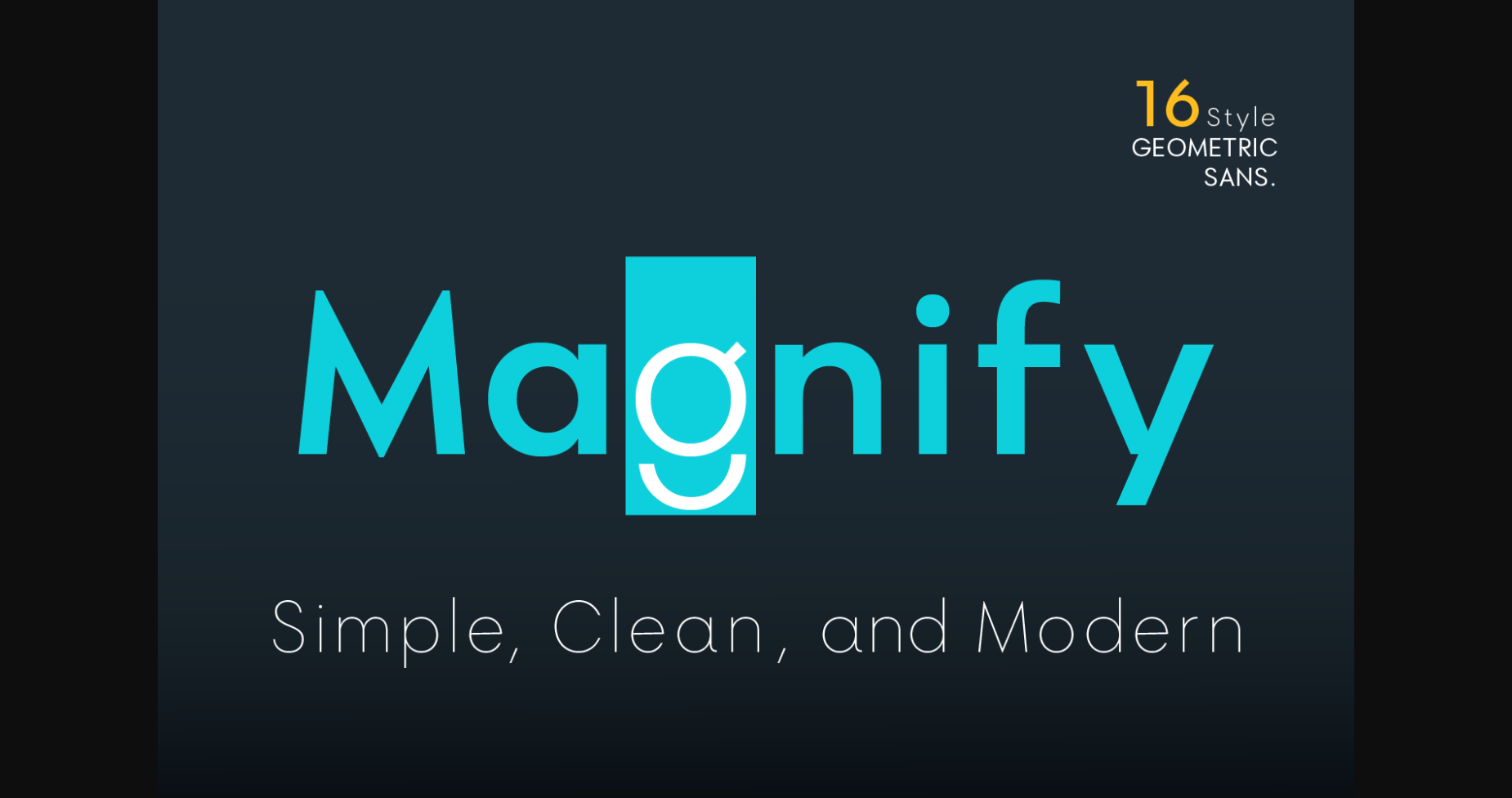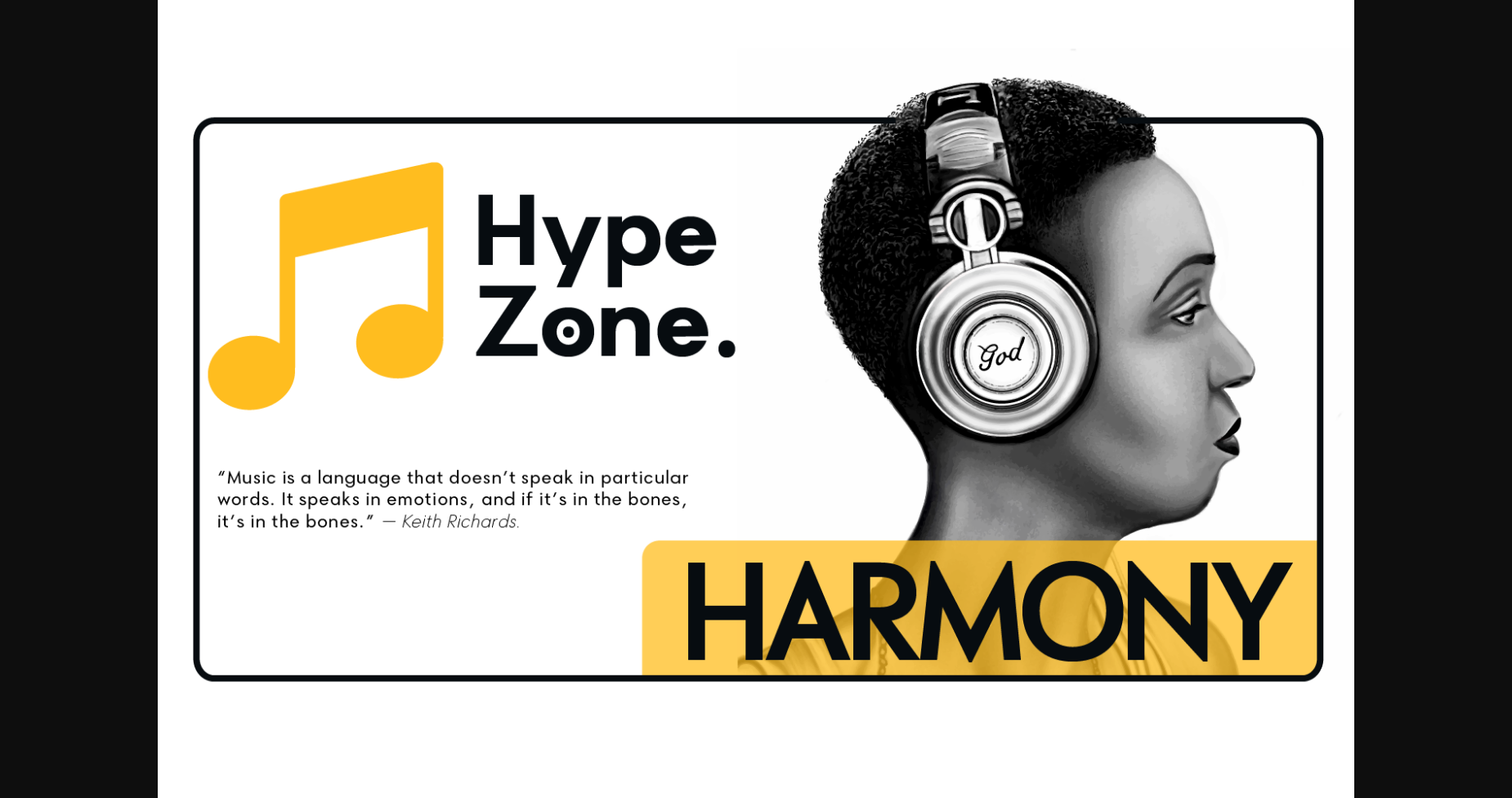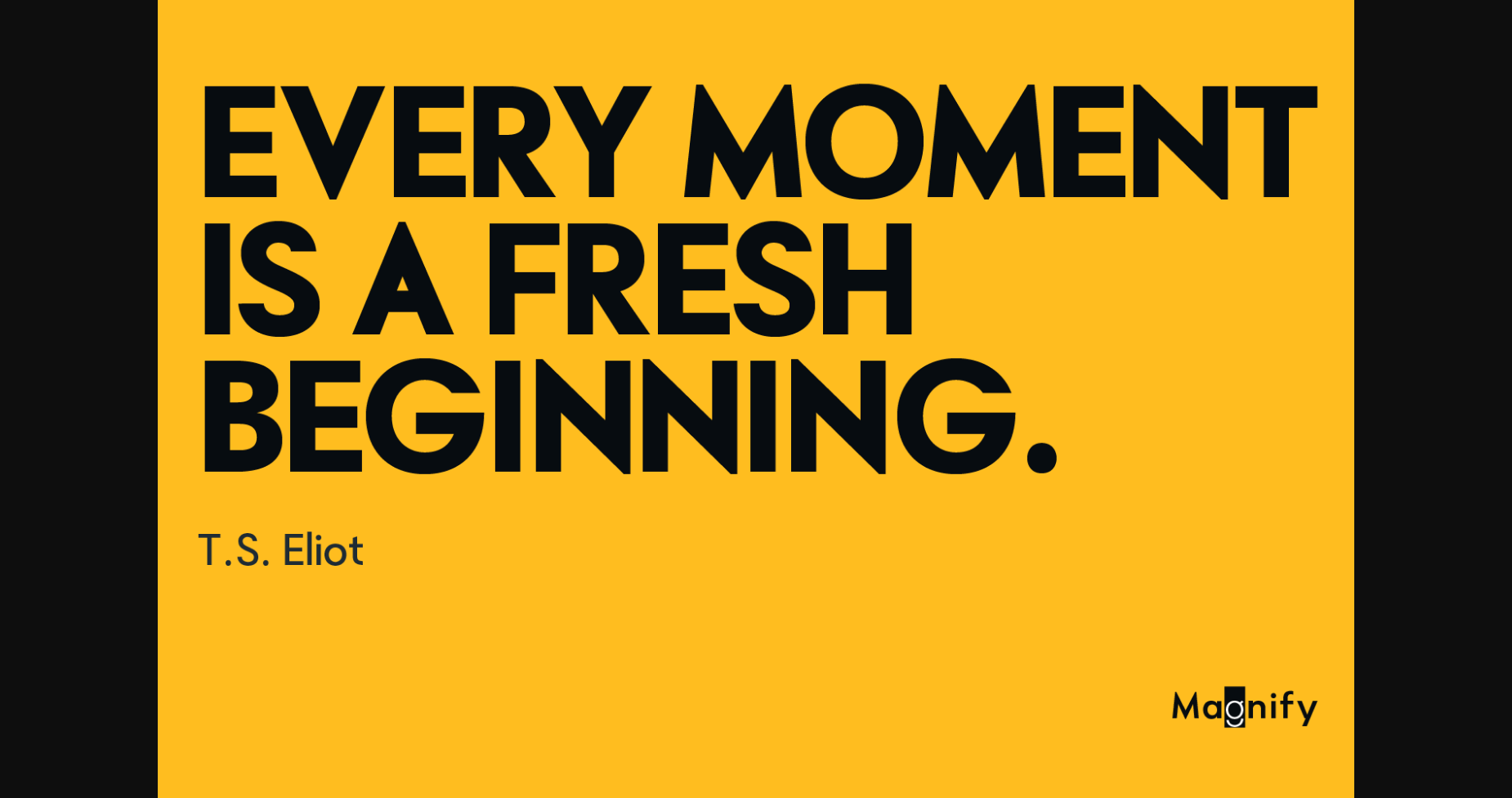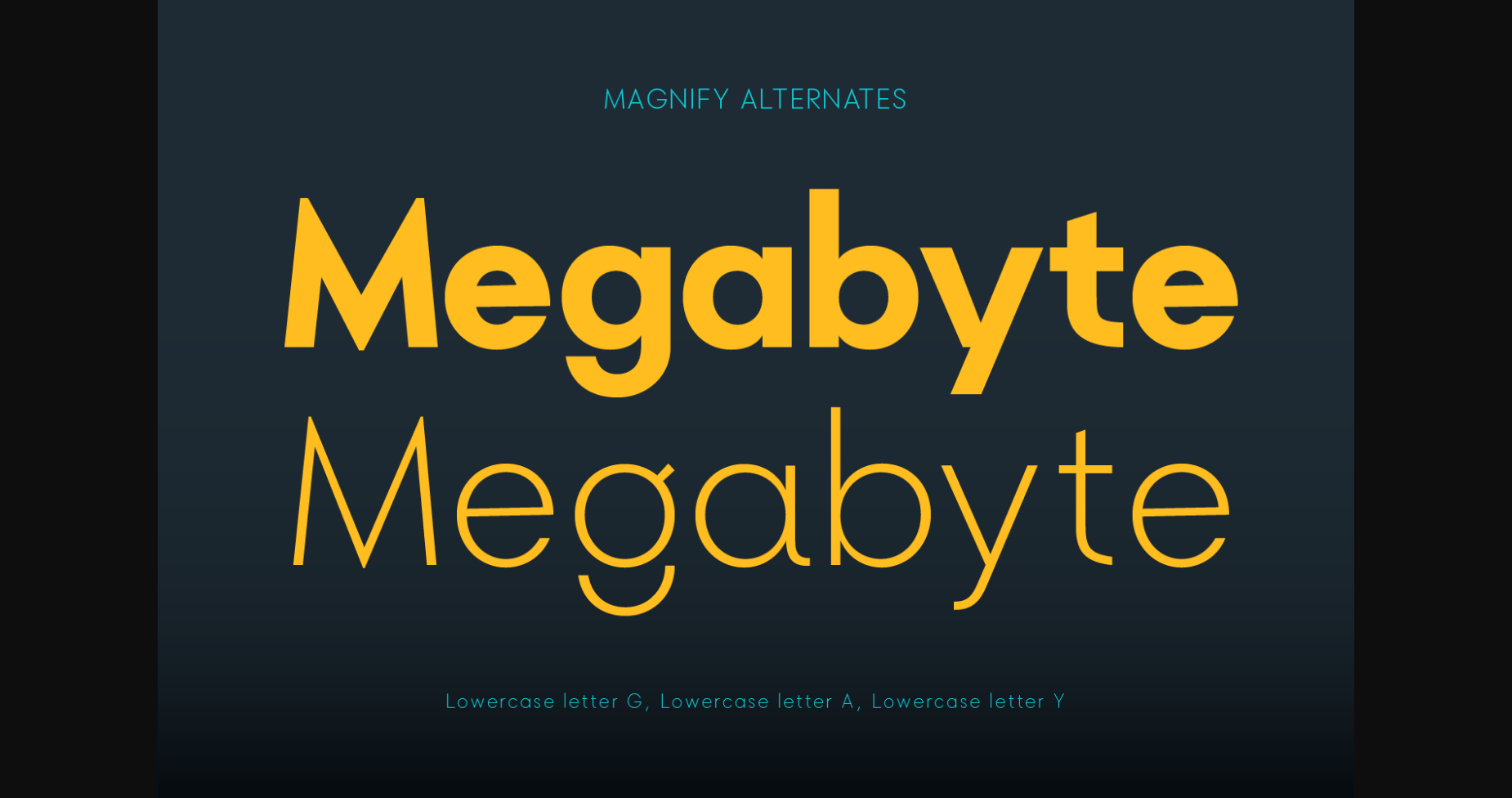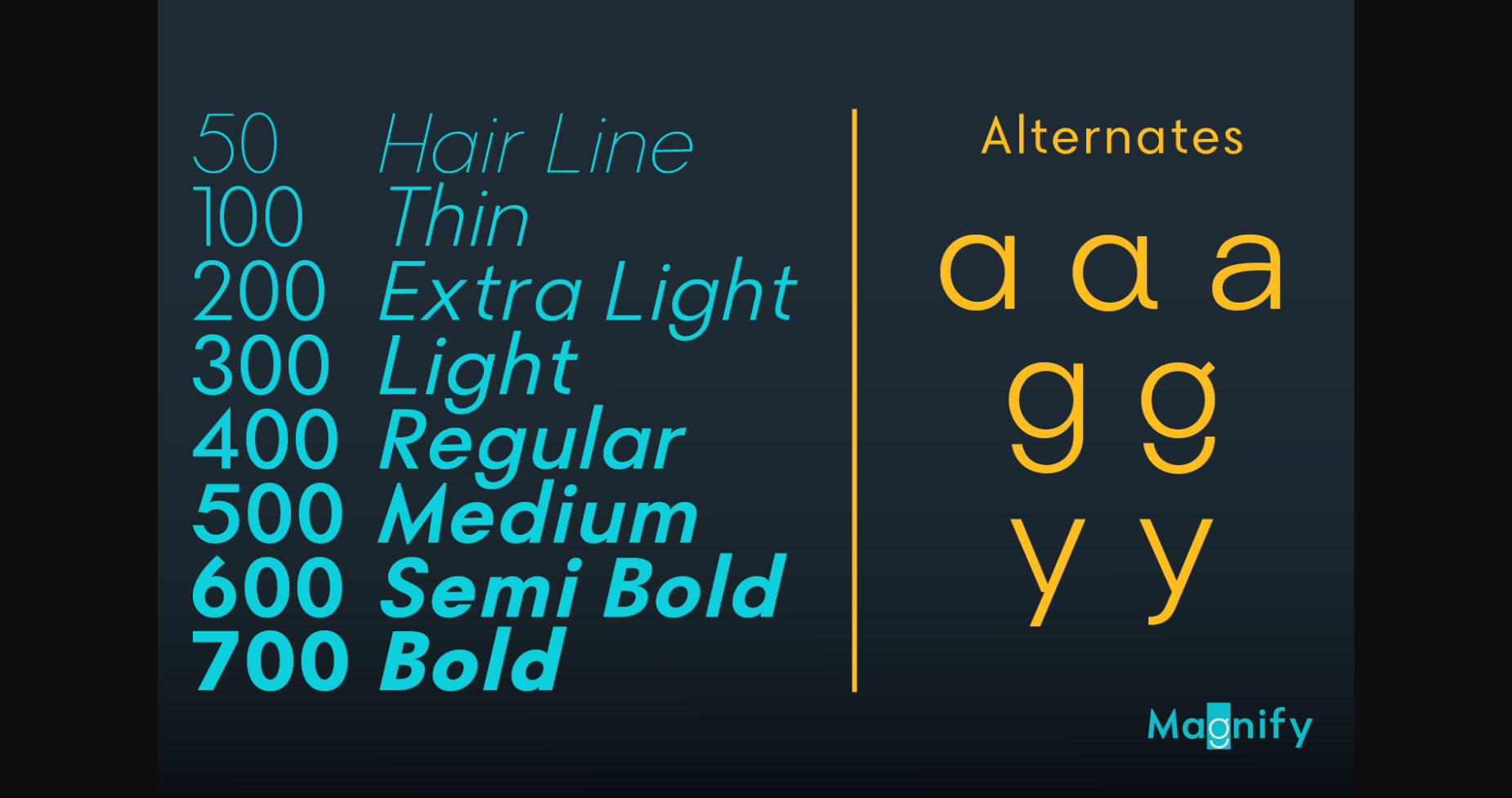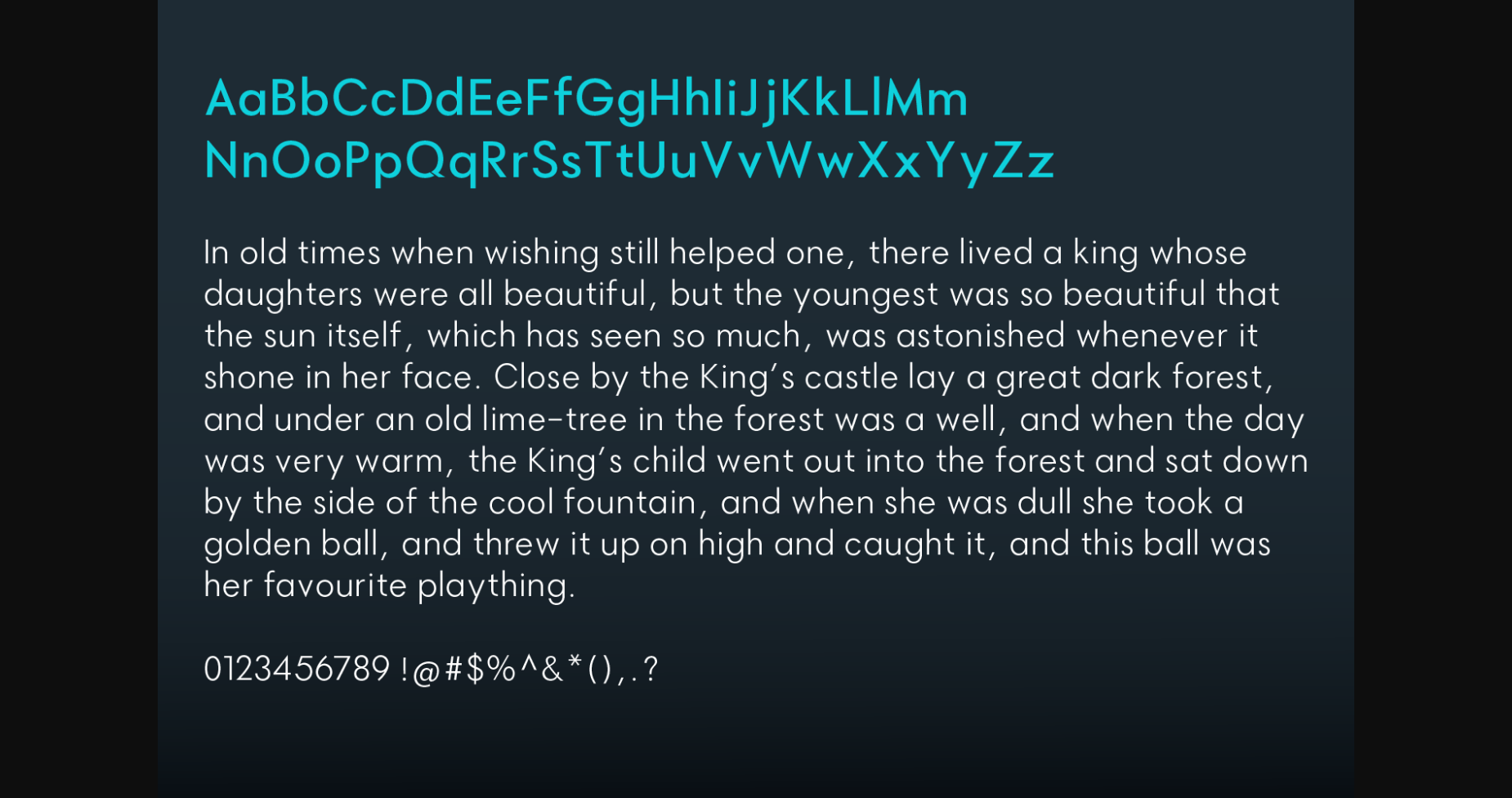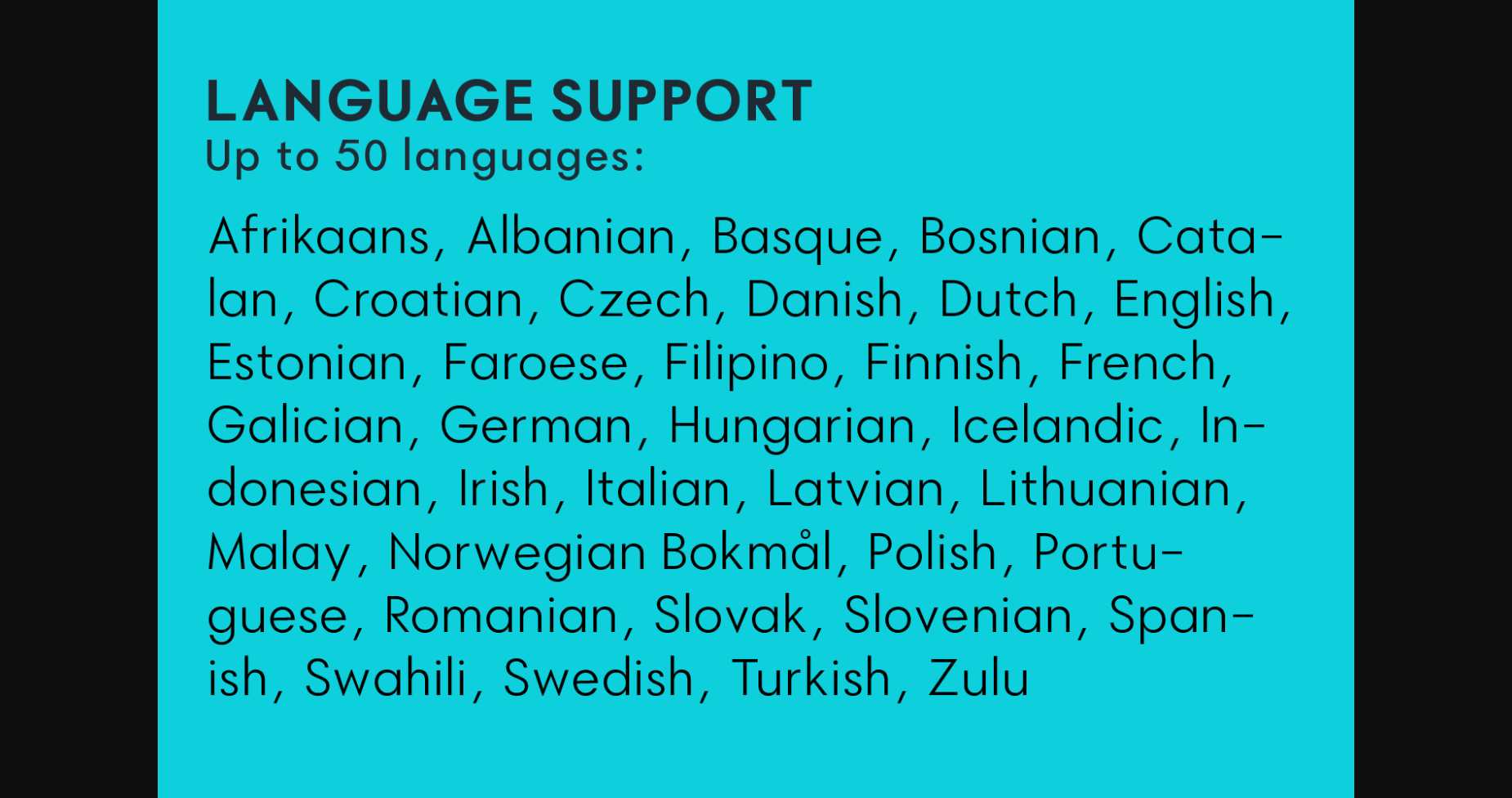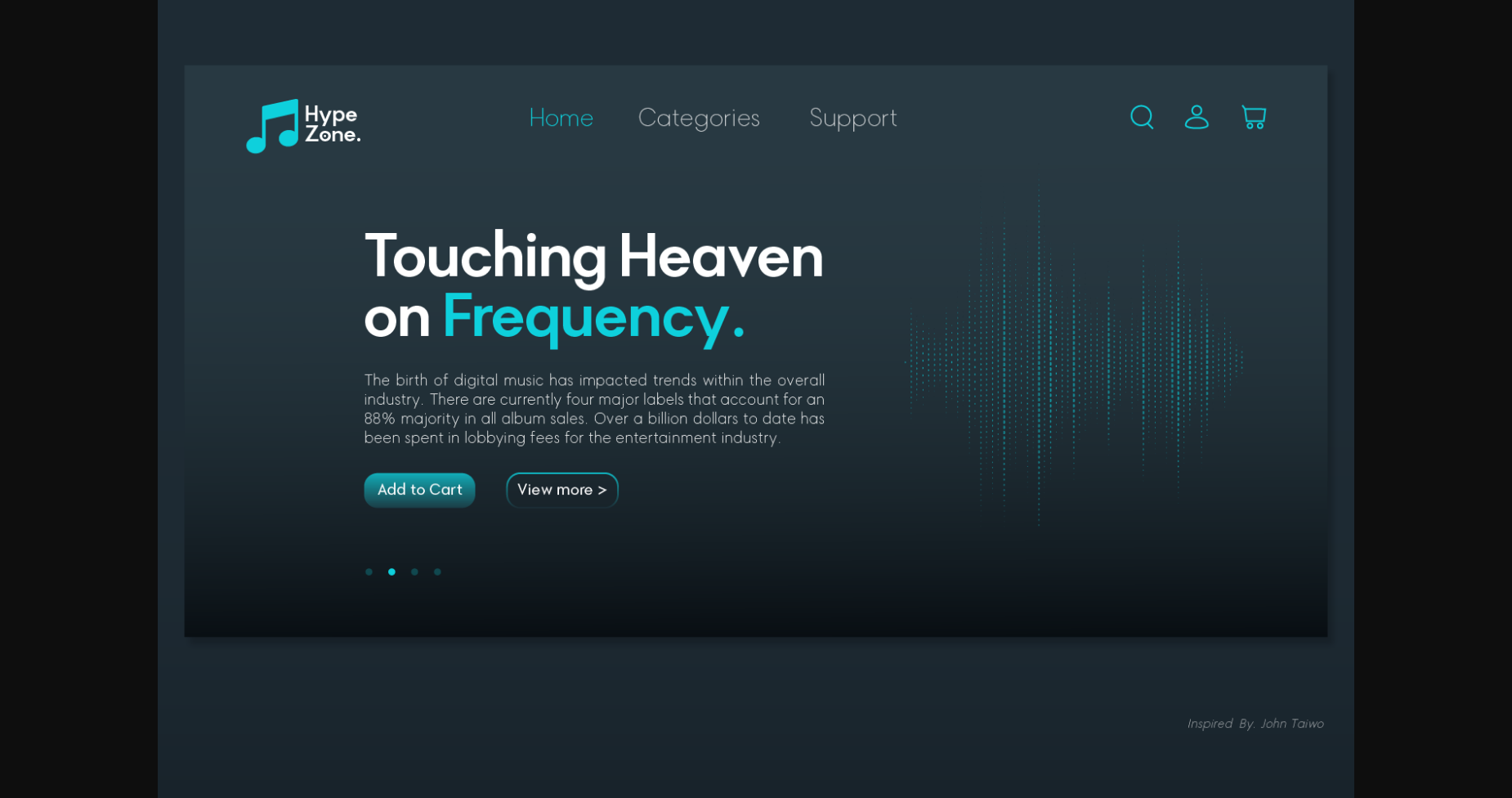
Magnify Font Font
About This Font Family, Geometric sans serif is one of my favorite fonts because it’s so, simple, clean, and modern, and for a long time I’ve been dreaming of making this type, inspired by many media and especially “Futura, 1927” (by Early Bauer) I created “Magnify” Geometric sans. The structure and element shape of Magnify is not really perfectly circular, but slightly oval it can be seen in the uppercase letters O, G, C, Q and in the lowercase letters o, a, c, e.
Magnify has 8 weights – from Hairline to Bold and Matching Oblique.
Magnify also has special alternate characters in the letters a, g, y, and o. It is to give a different look to a paragraph, headline, or display design.